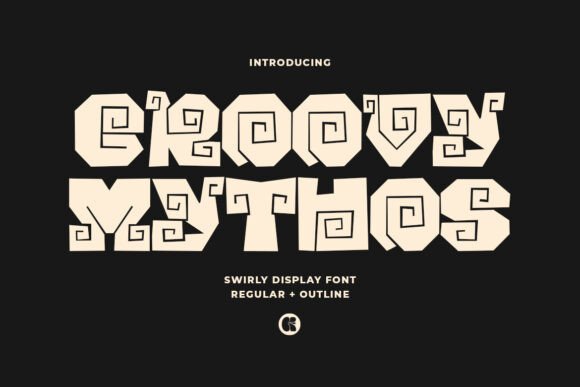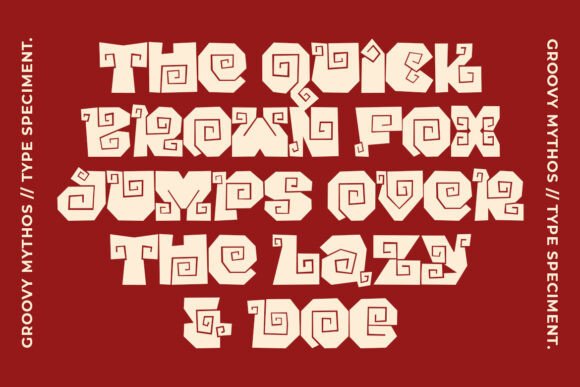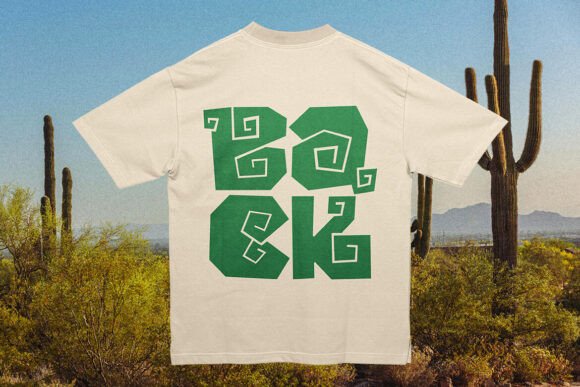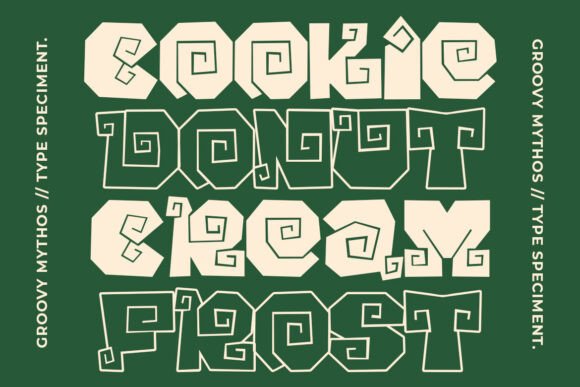
Groovy Mythos Font: A Bold & Playful Display Font for Creative Designs
About the Groovy Mythos Font
Let us introduce you to Groovy Mythos Font, where timeless design meets modern craftsmanship. Groovy Mythos is a striking display font that effortlessly combines swirly elements with a bold, tropical flair.
The swirling design of the font exudes a sense of movement and whimsy, while its boldness adds a touch of tropical paradise vibes.
Perfect for projects that aim to capture a lively, energetic spirit with a touch of mystery and allure.
This font comes in two types: regular and outline!
Groovy Mythos excels in headlines, posters, and branding applications where its bold, playful energy can make a statement. It’s ideal for projects related to travel, entertainment, or products with a vibrant, tropical aesthetic. However, its highly decorative nature makes it unsuitable for body text or UI elements requiring high readability.
Consider pairing Groovy Mythos with a clean sans-serif like Open Sans for a balanced contrast, or a more geometric sans-serif such as Futura for a modern feel. For a touch of elegance, a subtle serif like Garamond could work well, providing a sophisticated counterpoint to the font’s whimsicality.
The font’s core personality is bold, playful, and slightly mysterious, making it perfect for brands that want to project a sense of fun and adventure with a touch of intrigue.
Groovy Mythos Font Usage Examples
Groovy Mythos Font Example